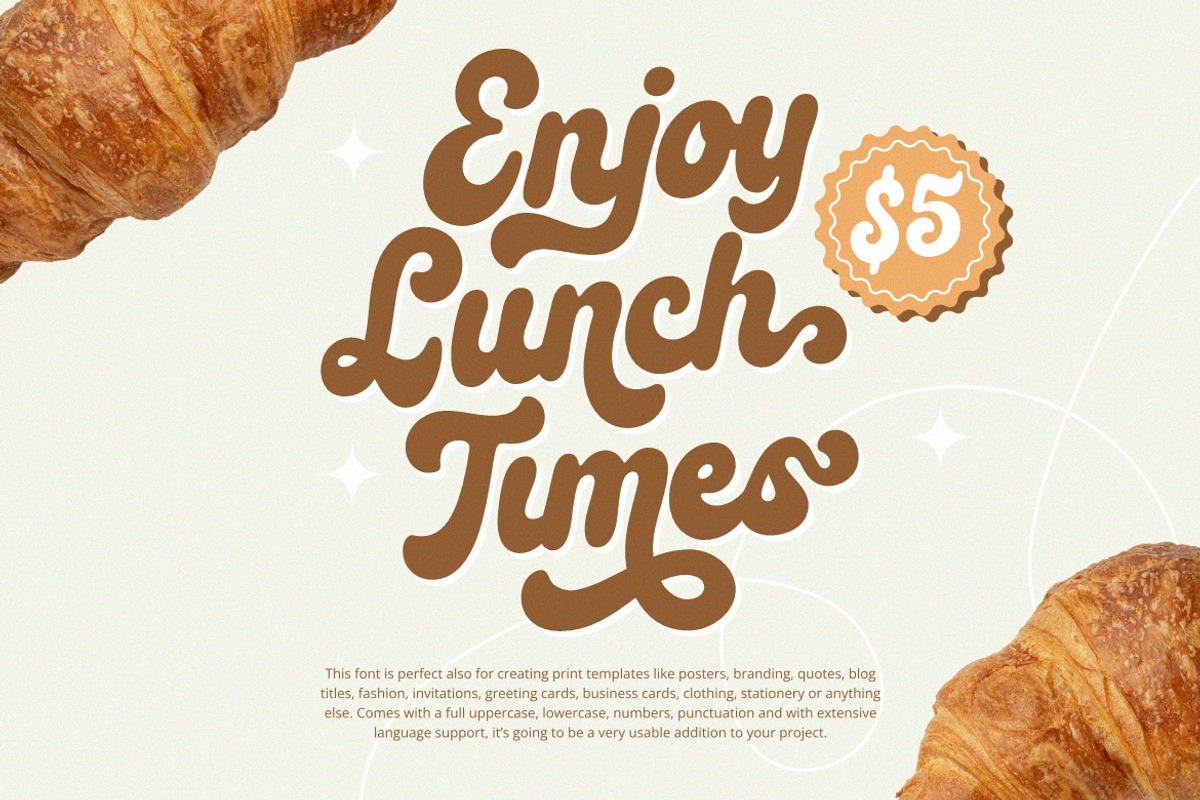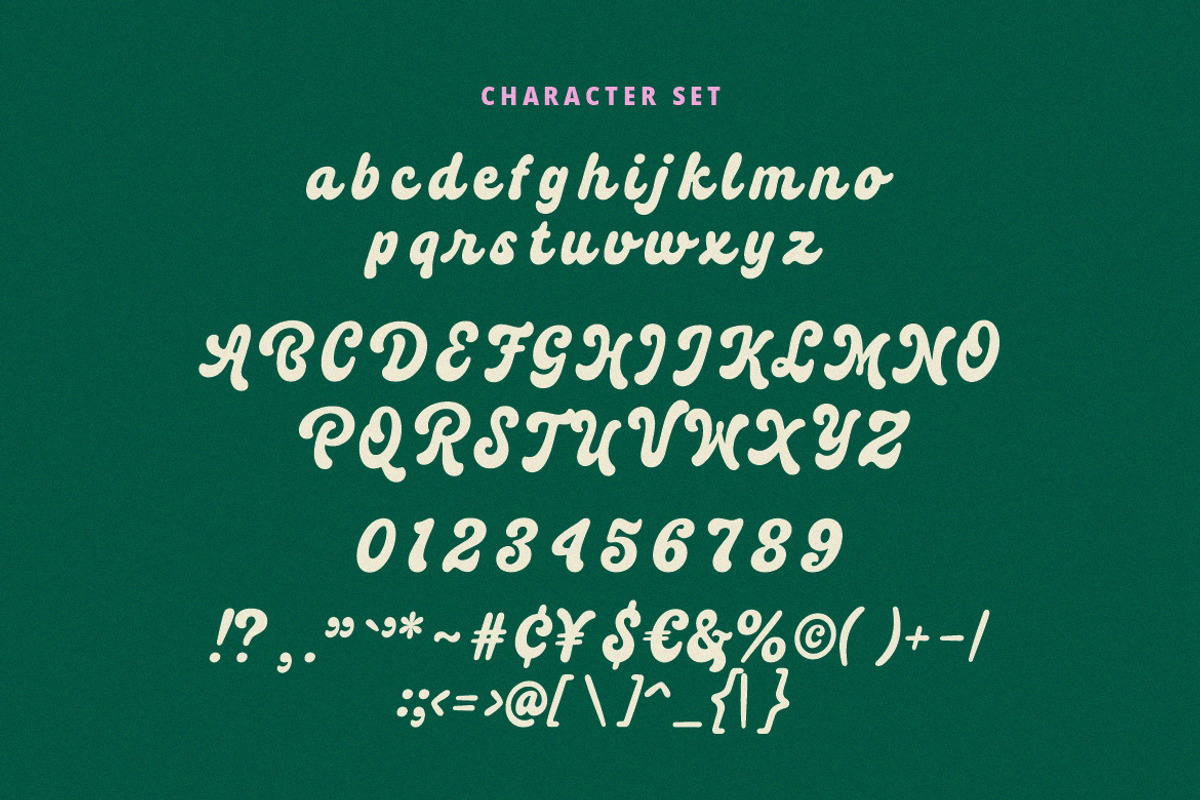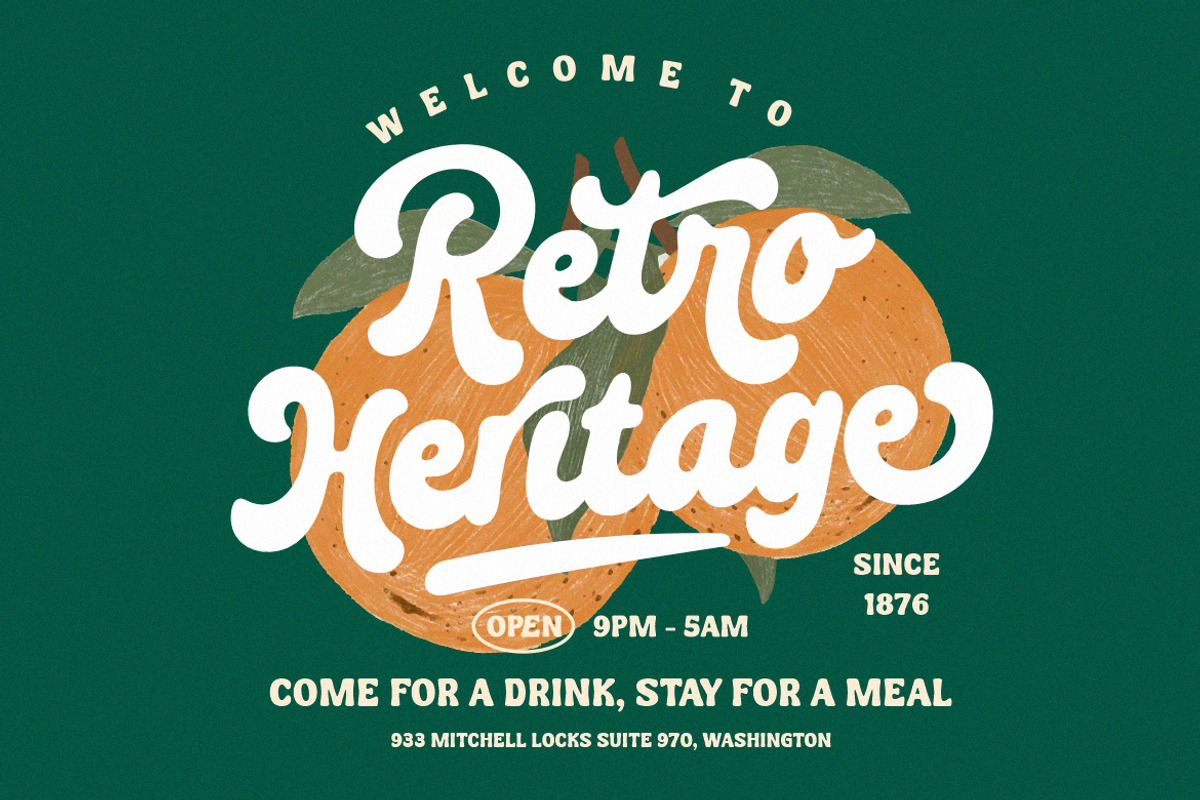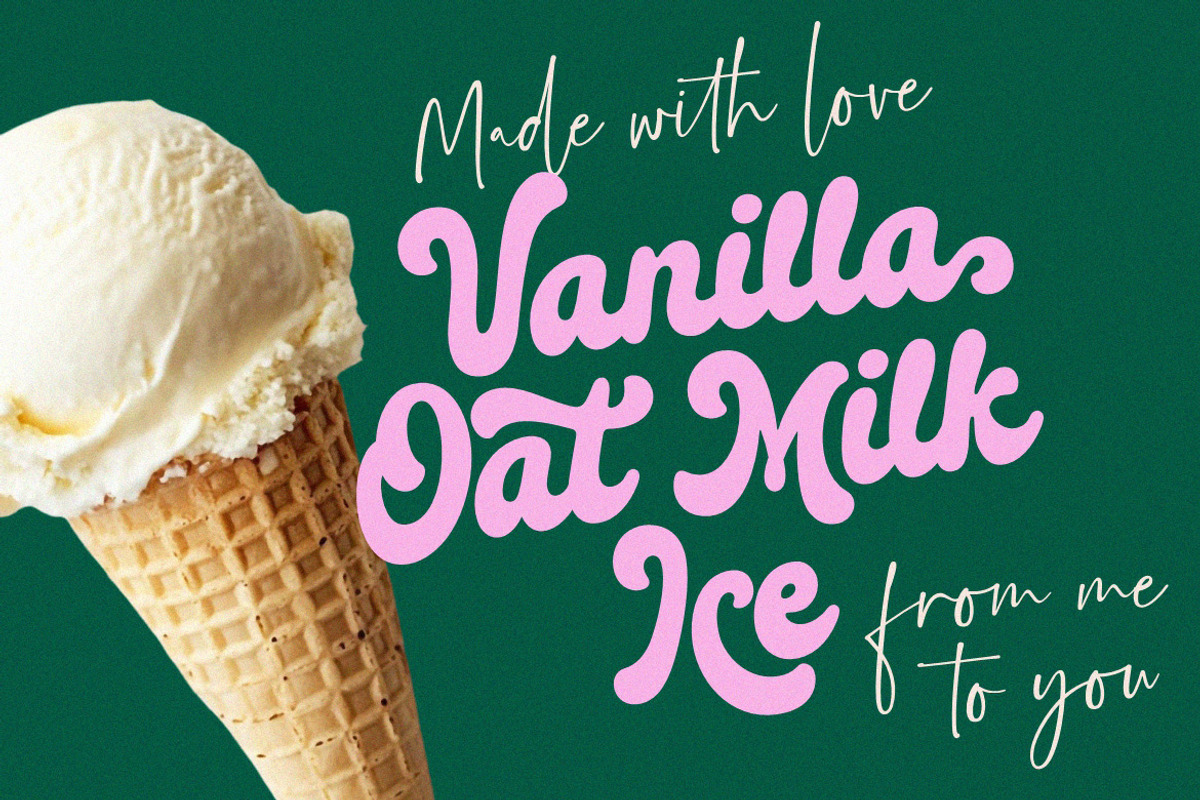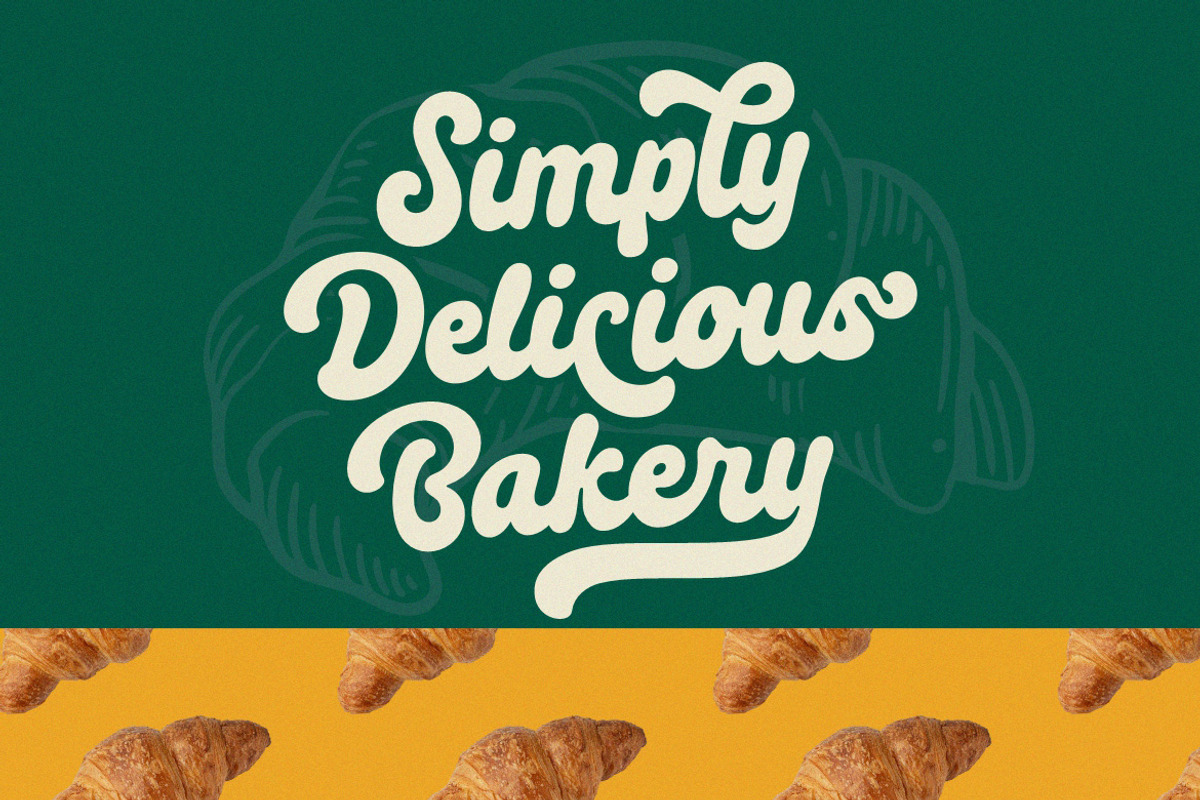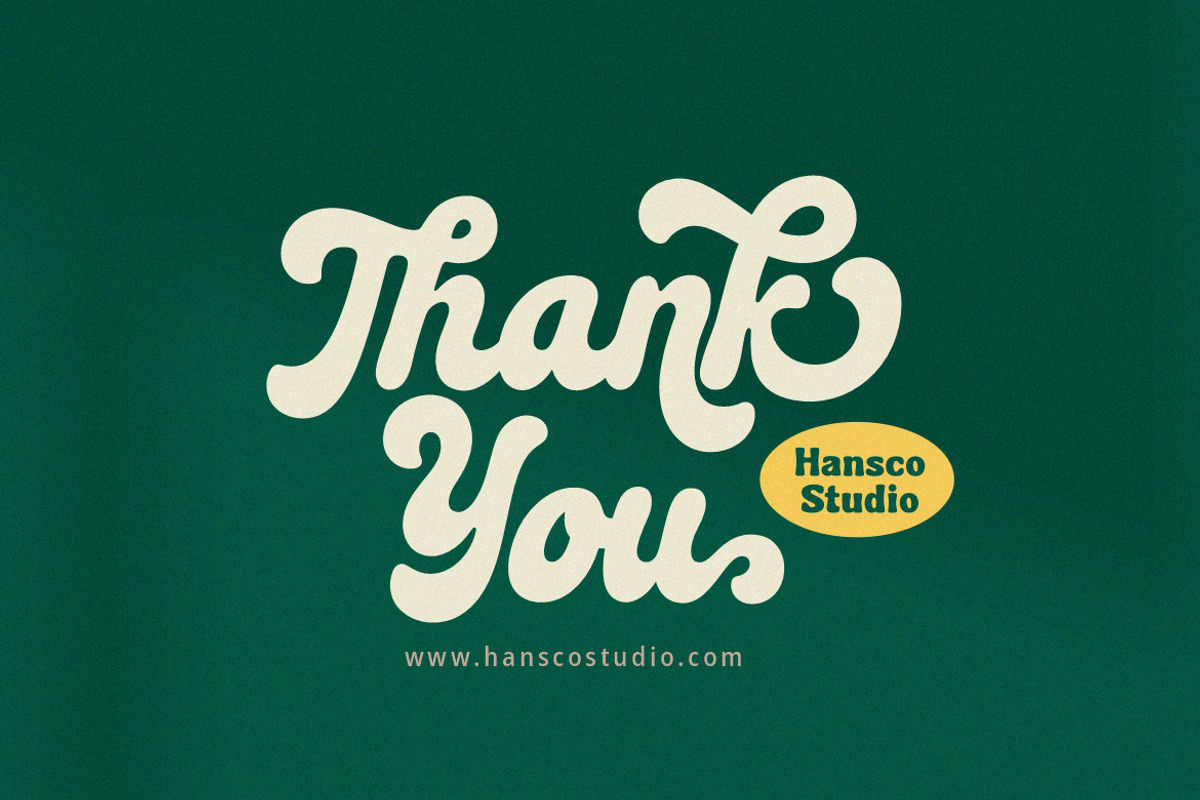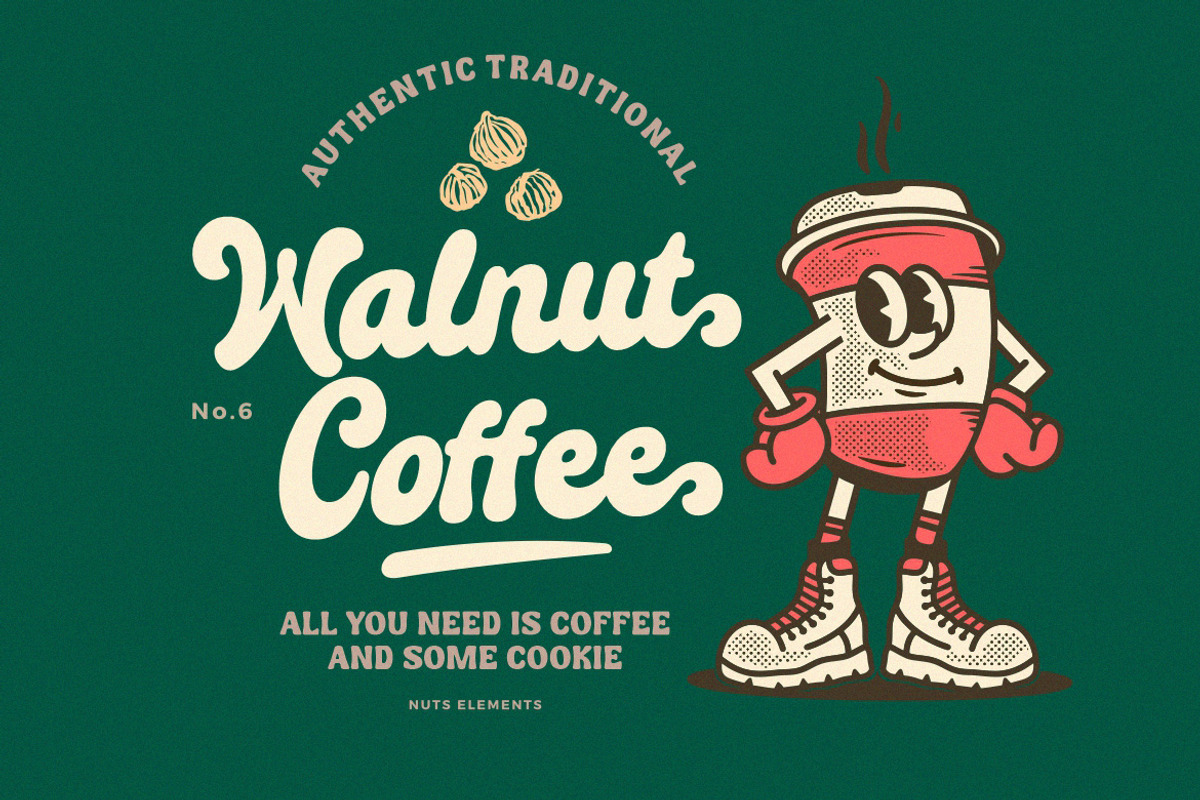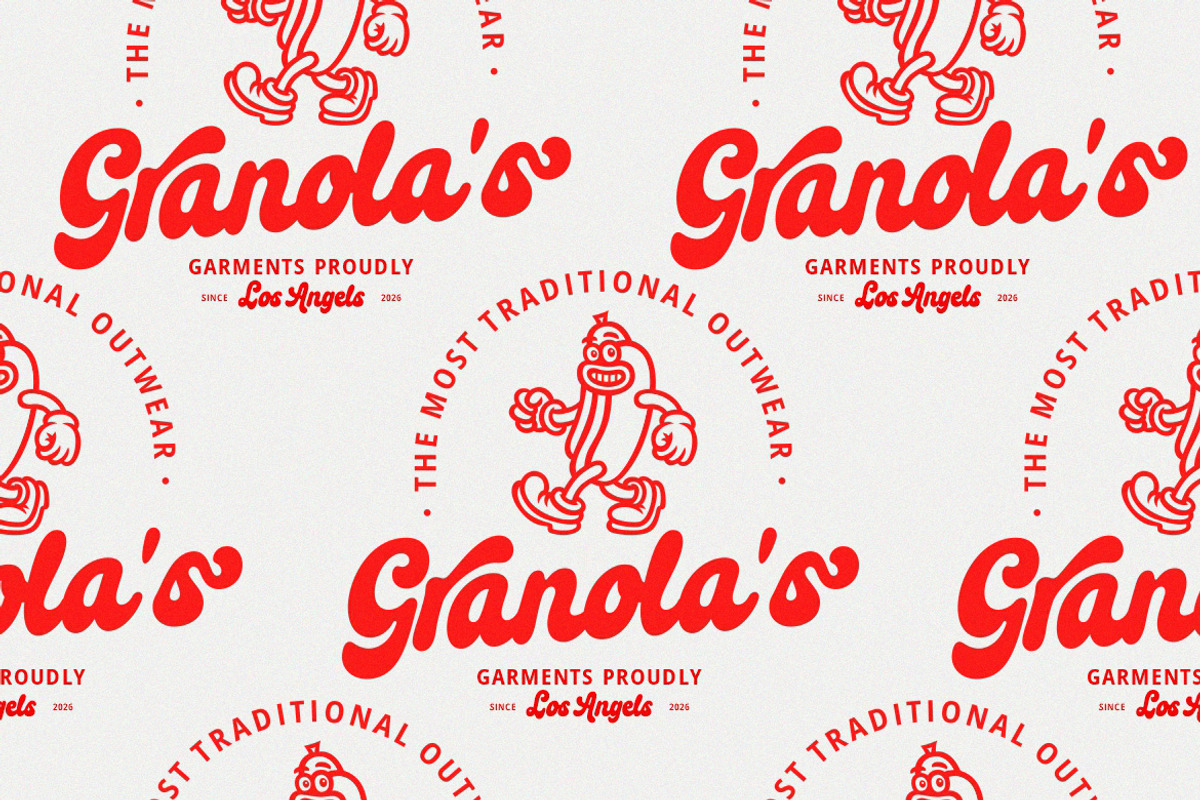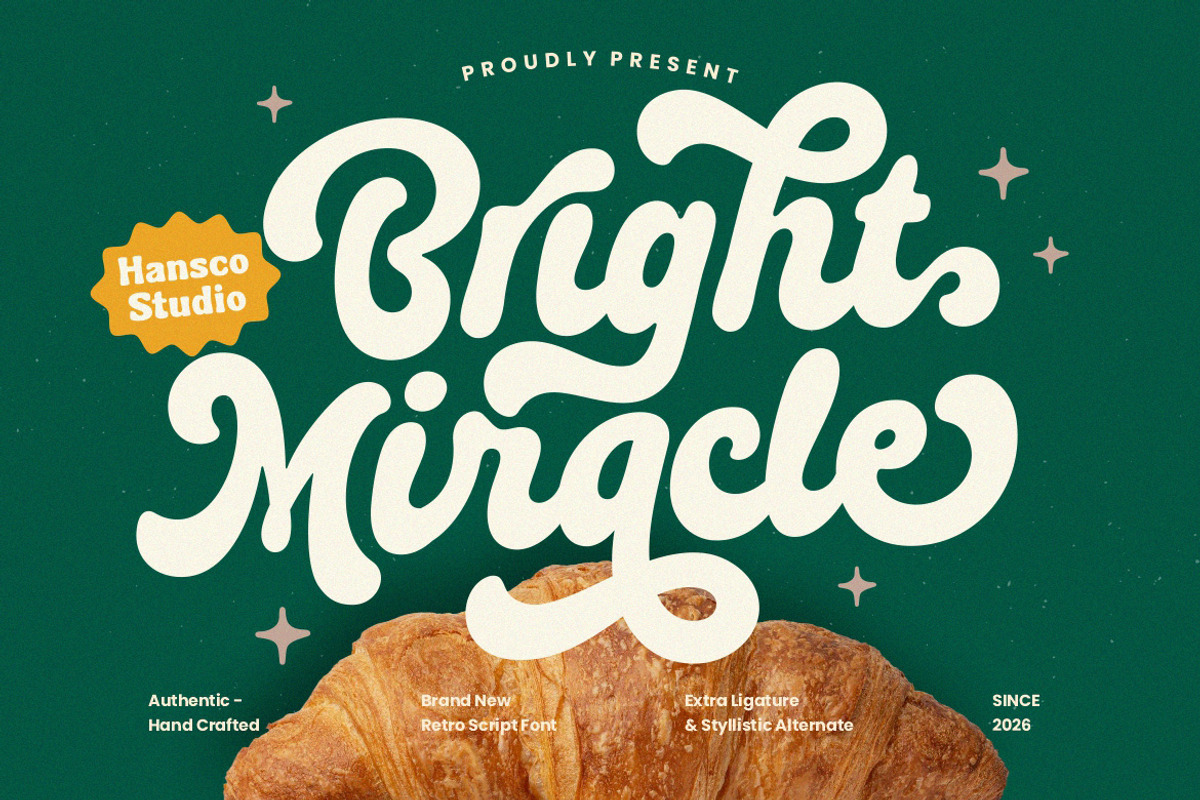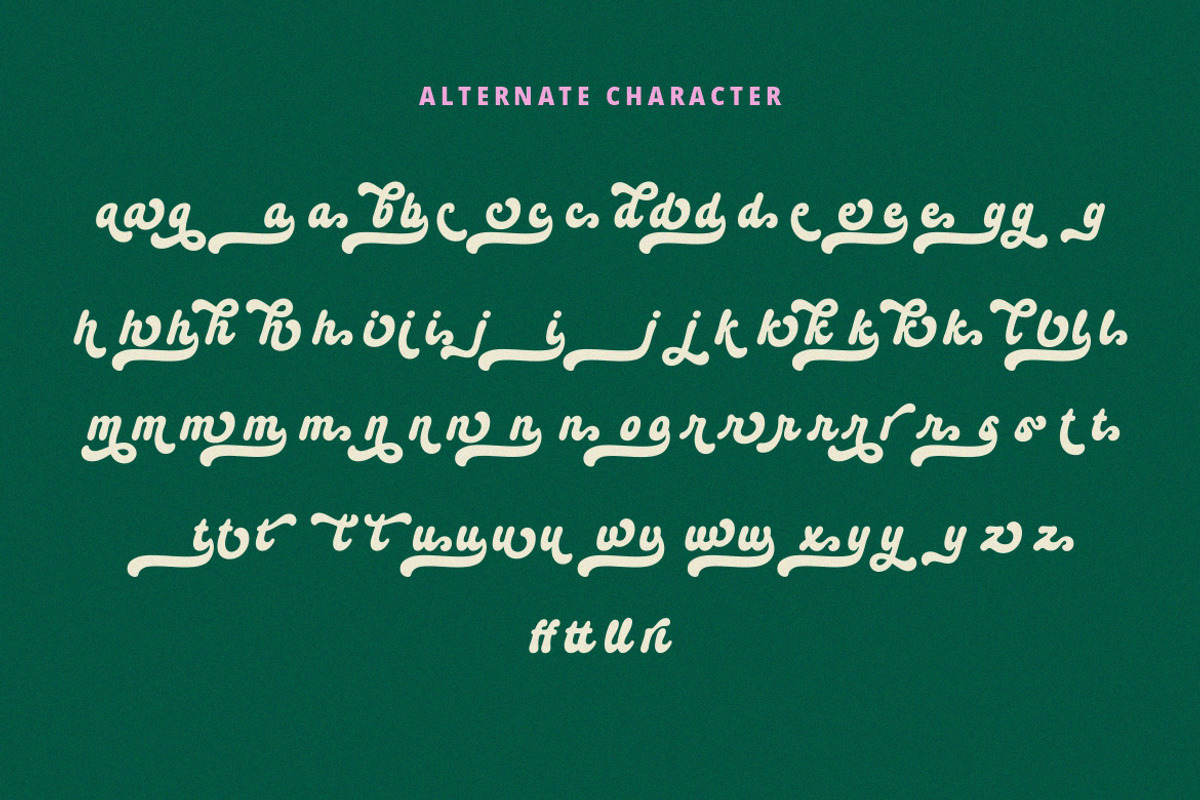
Bright Miracle Font
Bring effortless charm to your designs with this retro modern script font that blends nostalgic vibes with a fresh, contemporary twist. Designed with smooth curves, natural flow, and a casual handwritten feel, this font is perfect for logos, branding, packaging, social media graphics, merchandise, and other creative projects. Its stylish yet approachable character makes every word look authentic, warm, and eye-catching.